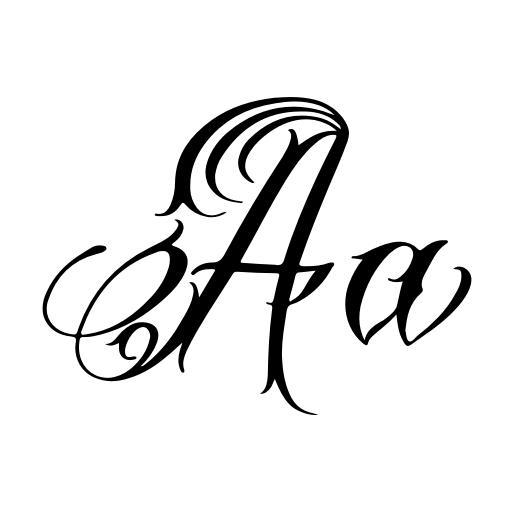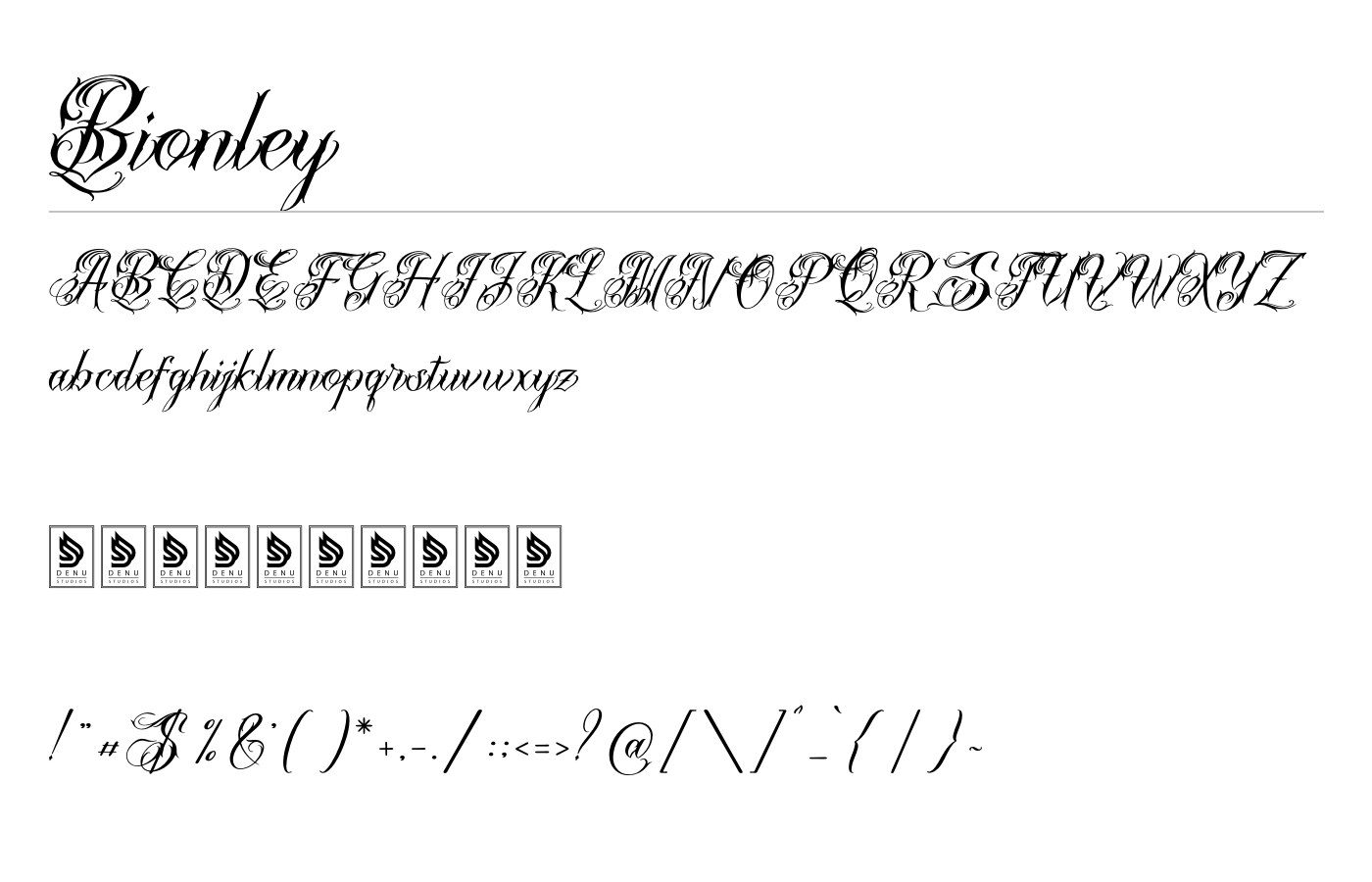
Bionley is an elegant script font characterized by its intricate, decorative uppercase letters and slender, flowing lowercase forms. Its high contrast and ornate swashes give it a sophisticated, vintage feel, making it ideal for luxury branding, wedding invitations, and refined editorial designs where a touch of classic artistry is desired. The font shines in headlines and logos that seek to convey elegance and timeless charm.
Bionley Font
About Bionley Font
| Font family | Bionley Font |
| Designer | Dede Nugraha |